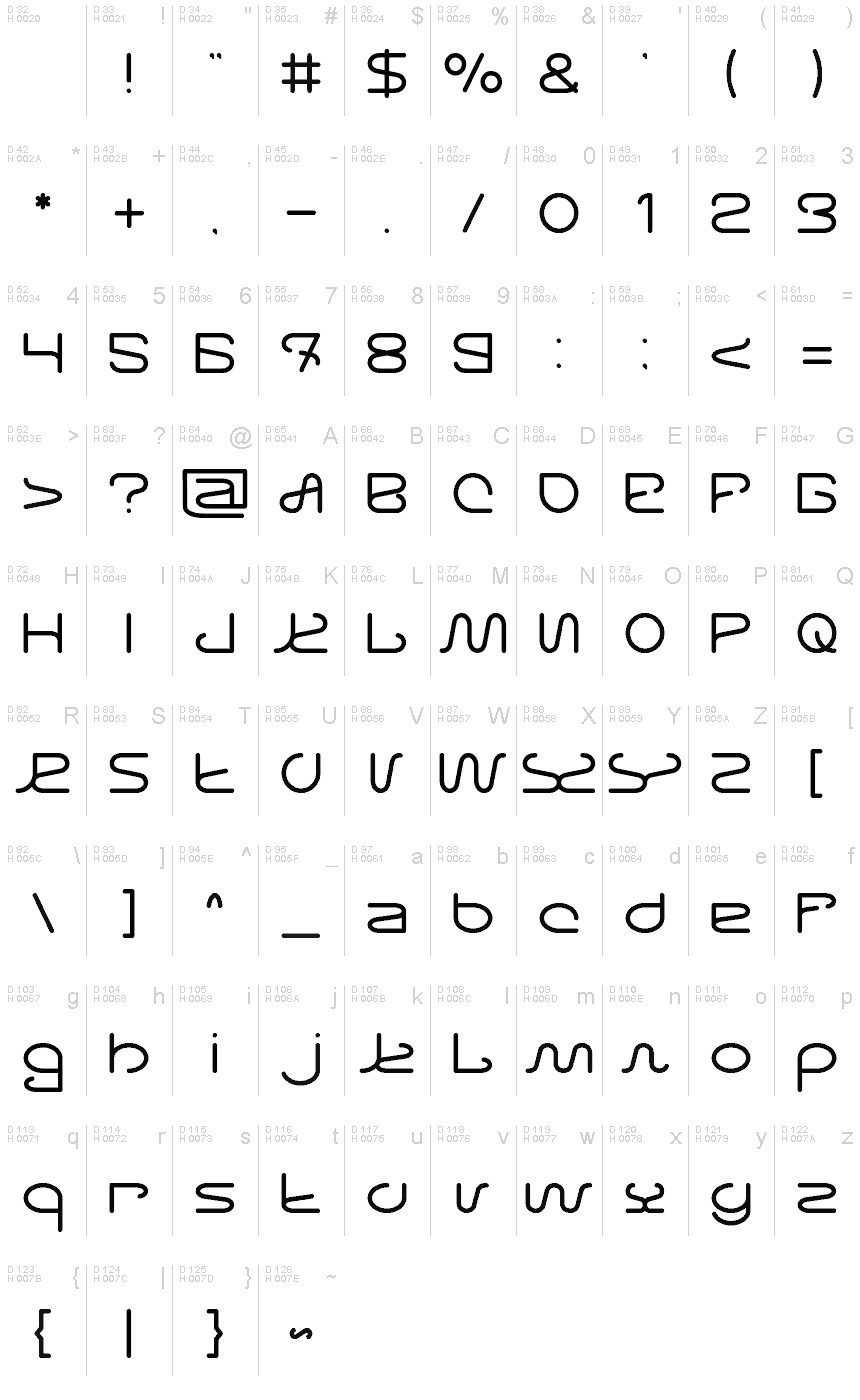
Letting The Cabble Sleep-Light
Letting The Cabble Sleep Light, a captivating addition to the Letting The Cabble Sleep font family, exudes a distinctive techno-inspired elegance. Crafted by the renowned designer Weknow, this light and expanded font boasts a mesmerizing blend of sharp edges and fluid curves, creating a striking visual statement. The font's alluring aesthetic evokes a sense of modern sophistication, seamlessly bridging the digital and analog realms.
Letting The Cabble Sleep Light's versatility shines through its versatile design, making it a compelling choice for a wide range of applications. From bold headlines and impactful branding to eye-catching typographic designs, this font's expanded width and light weight effortlessly command attention, lending a touch of futuristic sophistication to any project.